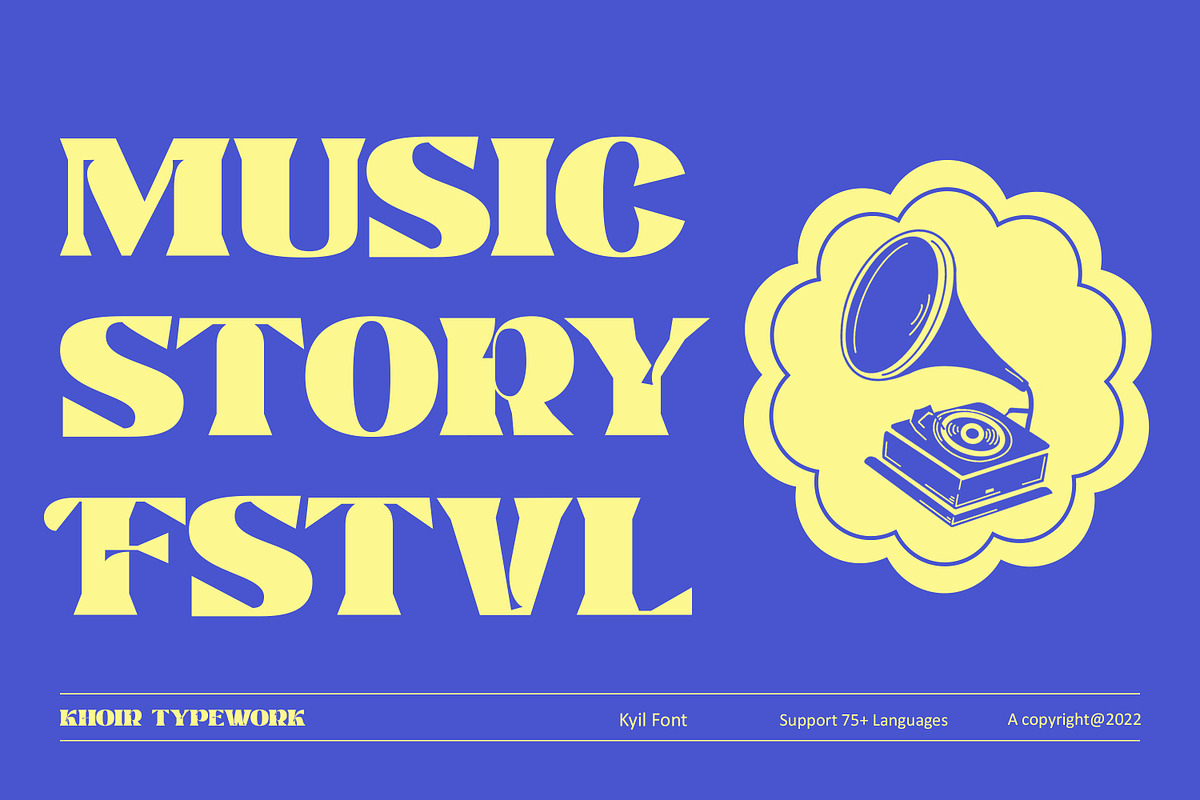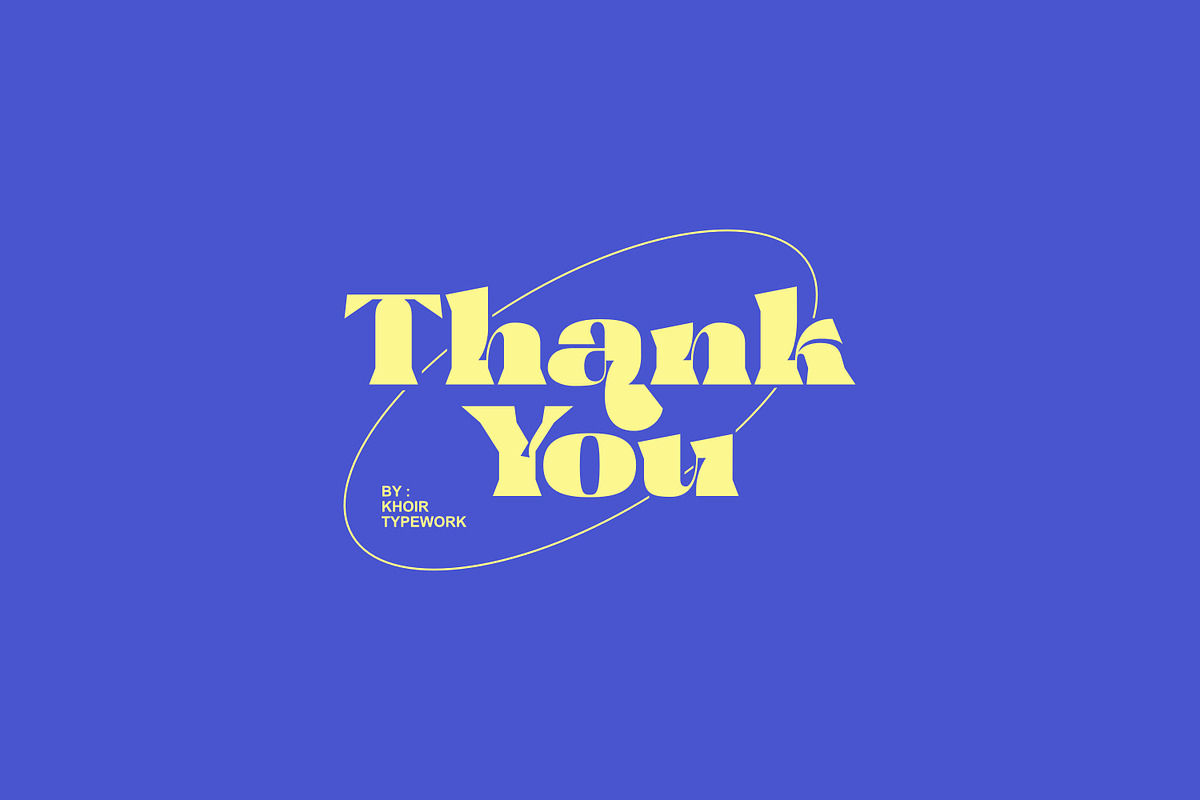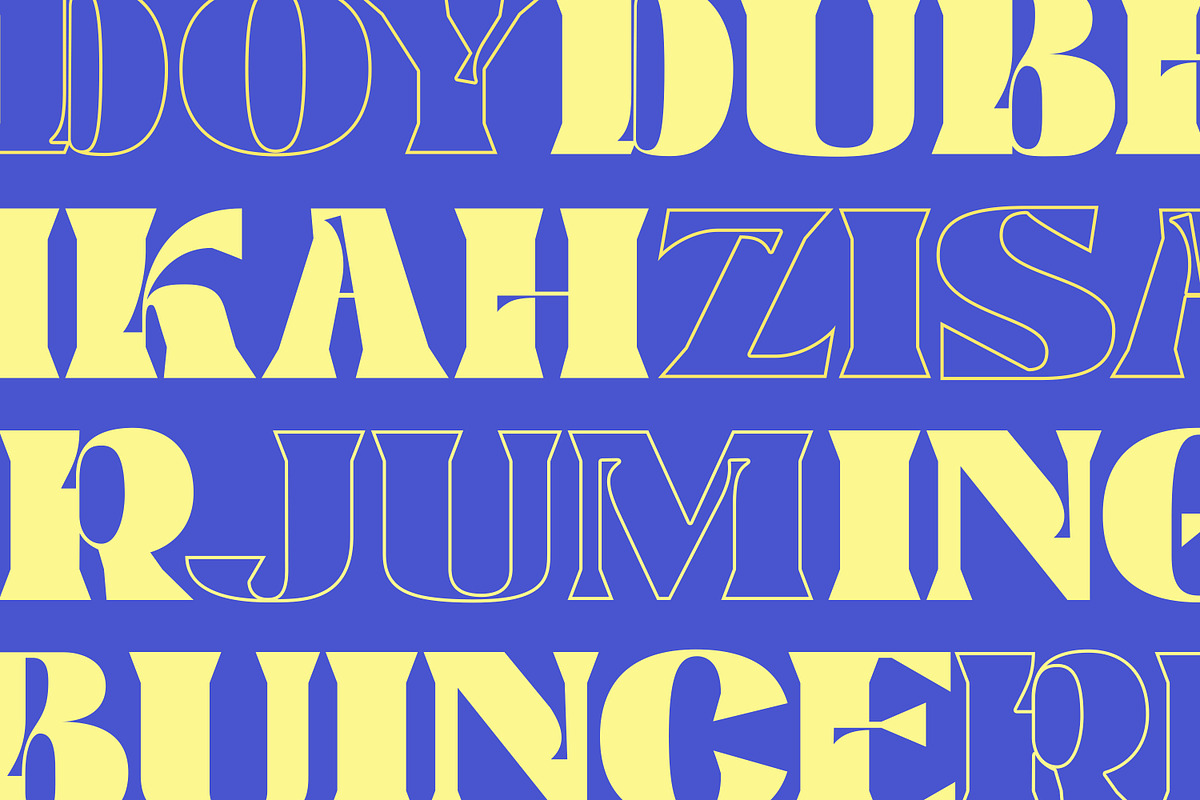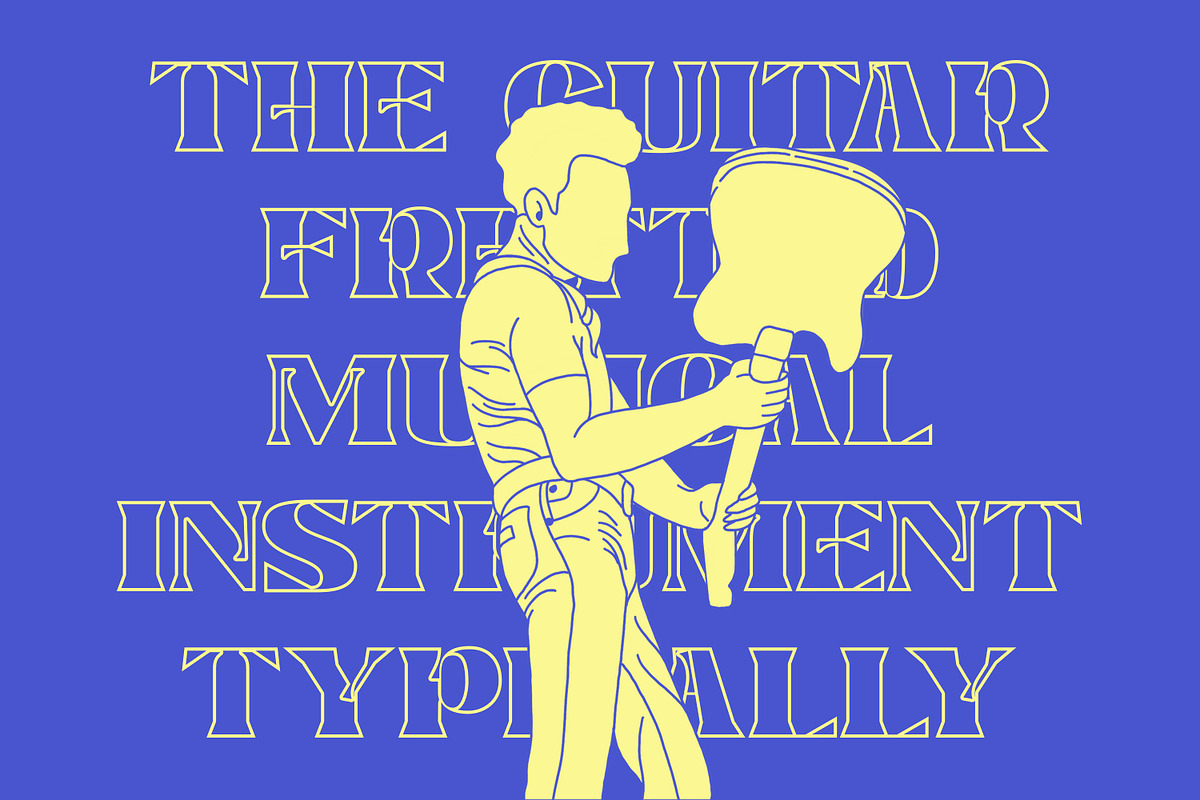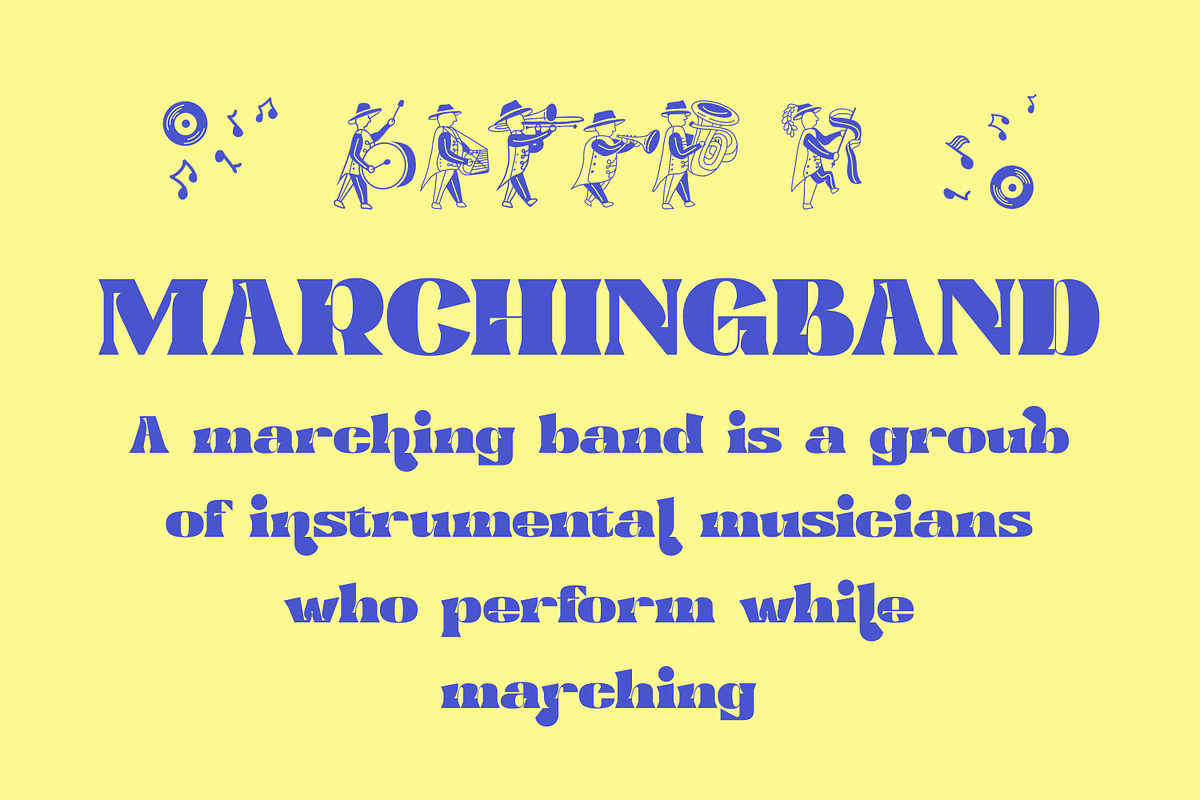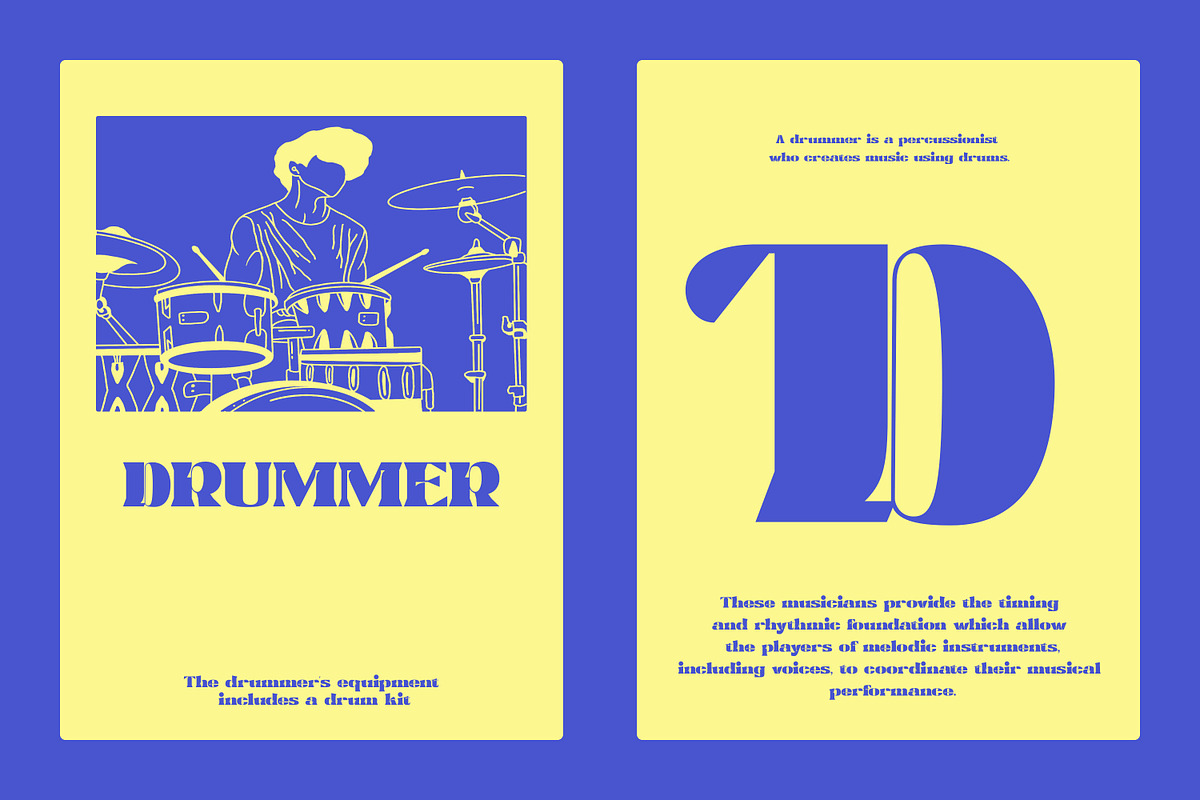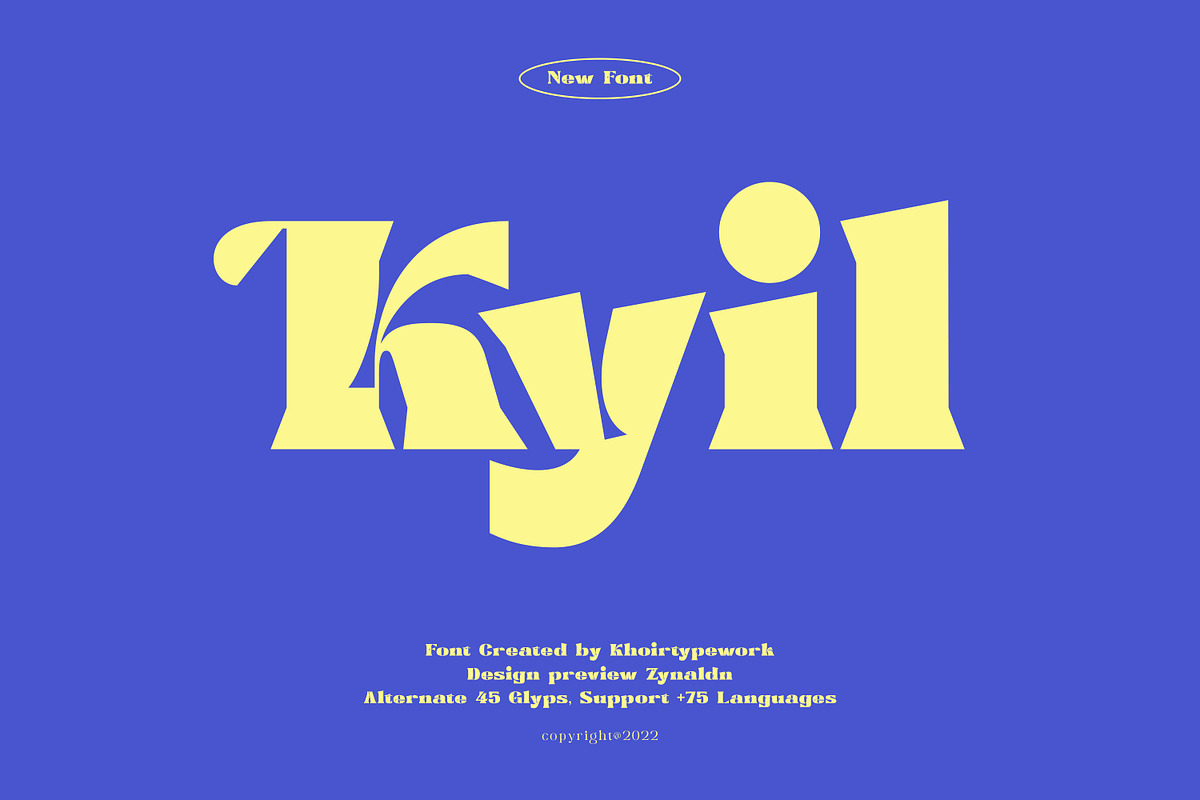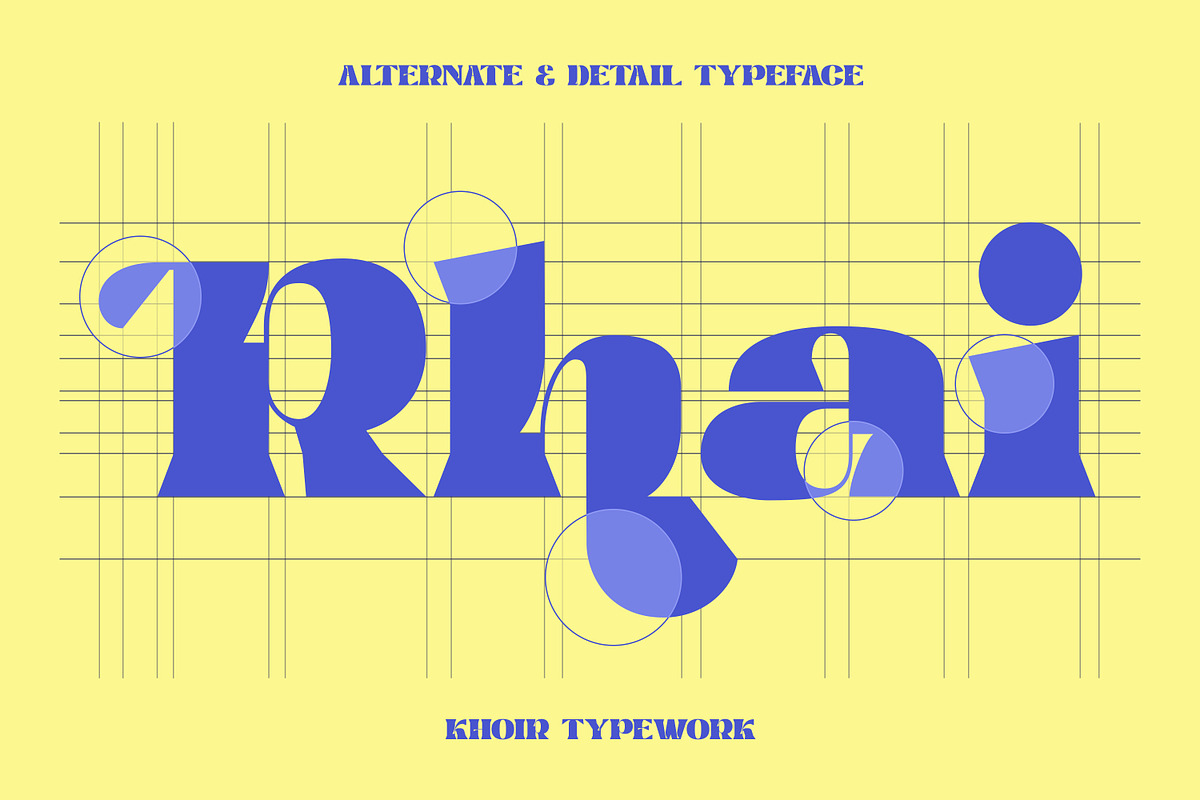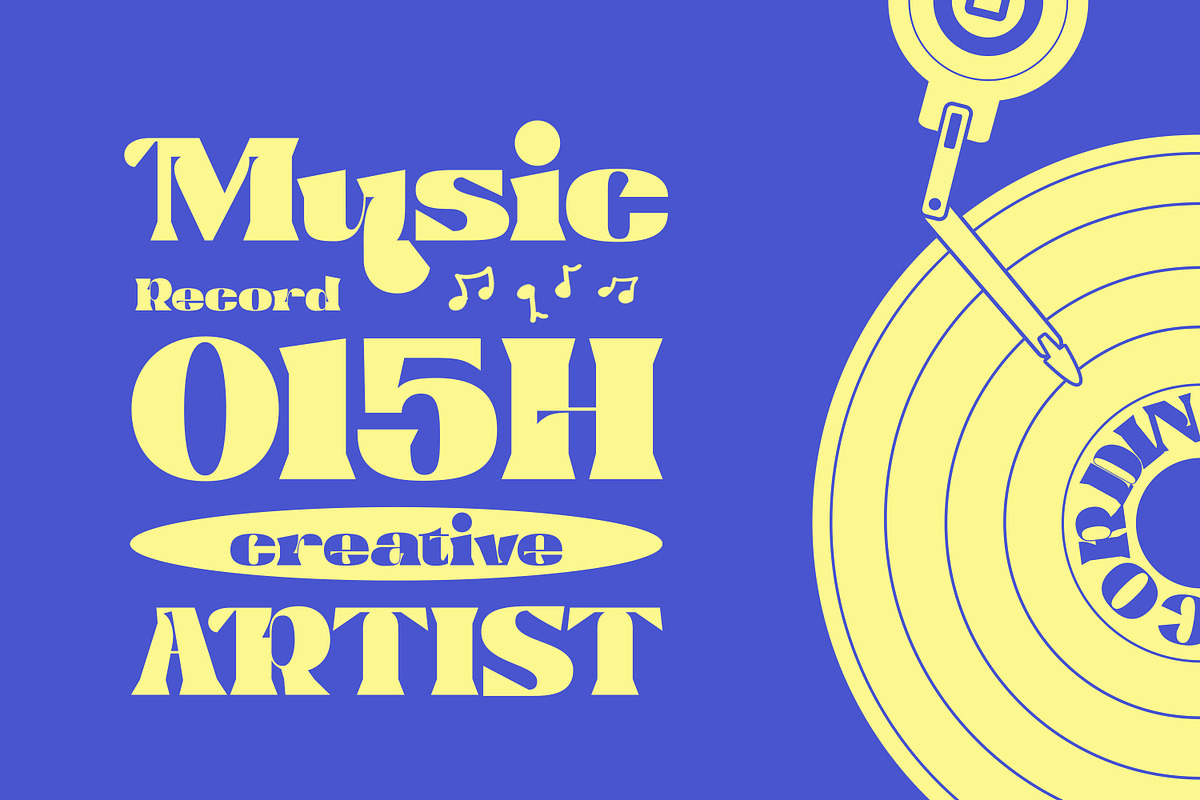
Kyil
Kyil is a bold font with uniqueness in each letter that is carefully crafted to create a unique look, as well as several alternative fonts that make it easy to meet your digital design needs. With this you can use it in a variety of ways from designing logos, posters, greeting cards, book covers, social media posts and other branding needs.
- Uppercase Characters
- Lowercase Characters
- Support 75+ Language